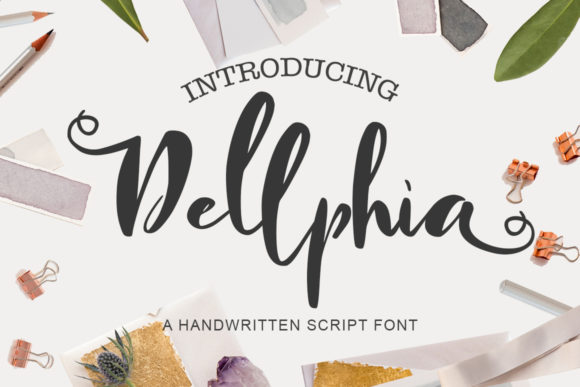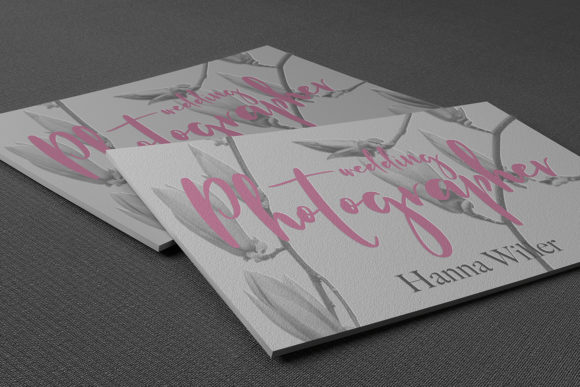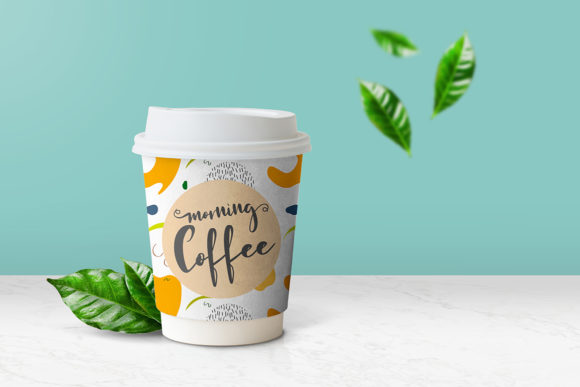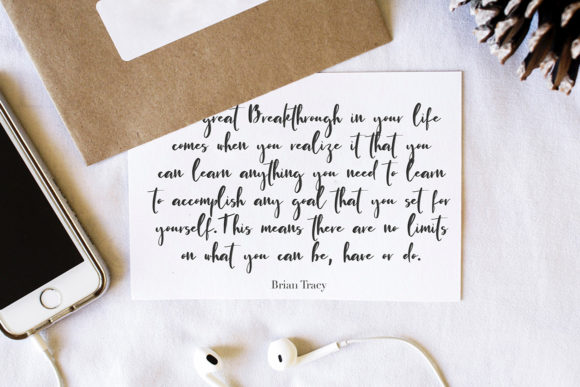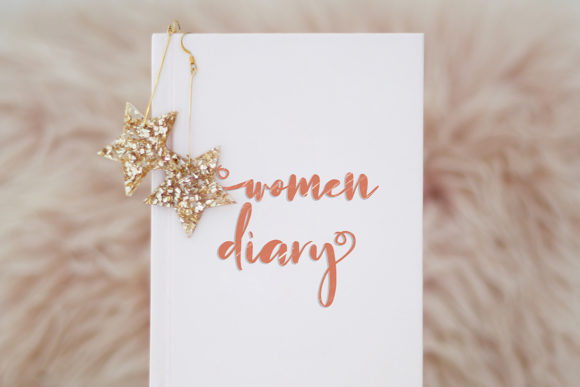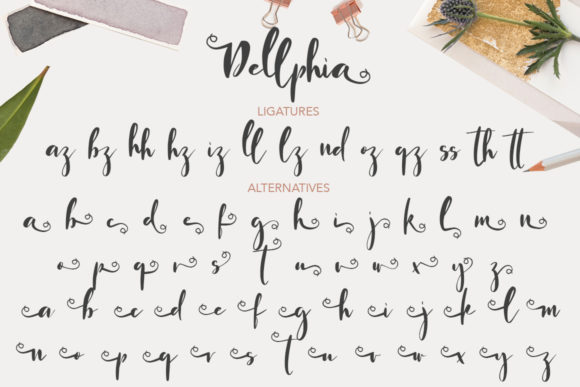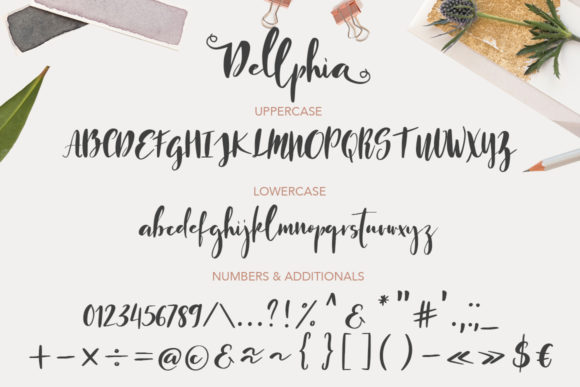
HomeScript FontsDellphia Font Script Fonts Dellphia Font FacebookXPinterestWhatsApp Dellphia Font Poster 2 Dellphia Font Poster 3 Dellphia Font Poster 4 Dellphia Font Poster 5 Dellphia Font Poster 6 Dellphia Font Poster 7 About Dellphia Font Dellphia is a simple, yet cute script that’s ideal for crafting. DOWNLOAD ON CREATIVE FABRICAThis font is sold and delivered by Creative Fabrica. Font Canyon may earn a commission if you buy through this link. People also explored Van den Velde Script Pro Bestday Font La Paloma Signature Archive Font Fandango Malibu Font Bangkok Restless Font Jingle Bells Font Coral Lovers Duo Font 387 0 TagsDellphia Font Previous articleZombiess FontNext articleReadfaster Font LEAVE A REPLY Cancel reply Comment: Please enter your comment! Name:* Please enter your name here Email:* You have entered an incorrect email address! Please enter your email address here Website: Save my name, email, and website in this browser for the next time I comment. Personal Use Free Ciggs Personal Use Free Read more about this font Banana Valentine Personal Use Free Read more about this font Lixdu Personal Use Free Read more about this font Hearted Personal Use Free Read more about this font BLOG Top 7 Google Fonts Alternatives for Faster and Privacy-Friendly Web Design (2025) Top 7 Google Fonts Alternatives for Faster and Privacy-Friendly Web Design (2025) When it comes to web typography, Google Fonts has long been the go-to... Top 10 Handwritten Fonts That Elevate Your Designs Where to Buy American Fonts Online in 2024 To increase your work productivity, choose the most readable fonts.